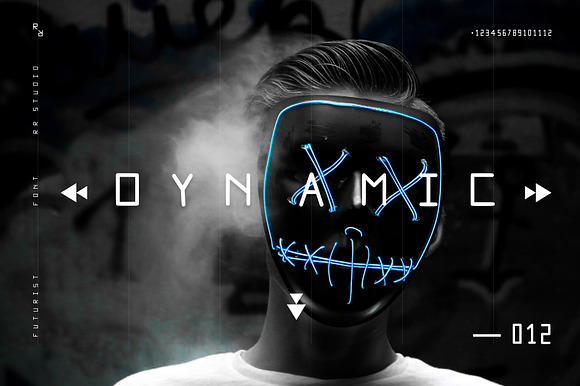
Dynamic Font
Geometric. Clean. Trendy. Maden for Great Titles, Web and Logos. Digits are simple and readable.
Why Dynamic Font is worth a look
Dynamic Font by RedRiver Studio fits naturally into Branding, posters, packaging, typography.